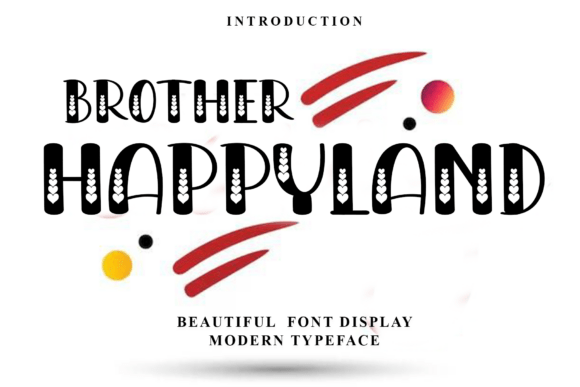
That’s where the Brother Happyland Font comes in – a beautiful and eye-catching font designed to bring a soft, unique touch to your designs. With its distinctive strokes and versatility, this font is perfect for a wide range of creative projects, from crafts to design works.
Key Features of Brother Happyland Font
- Font Family: Brother Happyland Font
- Unique Characteristics: Features a playful, handwritten style with a mix of rounded and pointed letterforms, making it ideal for creative projects and designs
Brother Happyland Font Review
I recently had the chance to work with the Brother Happyland Font, and here’s my honest take on it.
The Brother Happyland Font has a unique charm to it. The quirky characters and expressive style make it perfect for adding a touch of whimsy to children’s books, greeting cards, or even branding for a playful company. The font’s consistency in weight and size across various styles is also a plus.
- Unique and quirky design that adds character to text
- Consistent weight and size across styles
- Perfect for children’s content, playful branding, or greeting cards
The font’s readability can be a concern, especially in smaller sizes. The characters can be quite ornate, which might make it difficult for some readers to distinguish between letters. Additionally, the font’s limited weight range may not be suitable for all types of content.
- Readability issues in smaller sizes
- Ornate characters can be difficult to distinguish
- Limited weight range may not be suitable for all content
The Brother Happyland Font is a great choice for designers looking to add a playful touch to their projects. While it may have some limitations, its unique design and consistent style make it a worthwhile addition to any font collection.
Tips for Getting the Most Out of Brother Happyland Font
To get the most out of Brother Happyland Font, consider the following tips:
- Use the font for playful and whimsical designs.
- Combine the font with bold and bright colors for maximum impact.
Brother Happyland Font is commonly used for:
- Children’s book illustrations.
- Party invitations and decorations.
- Fun and playful advertisements.
Alternatives to Brother Happyland Font for Designers
Cream Soda is a playful, cursive script font suitable for designs that require a touch of whimsy and elegance. It’s perfect for invitations, greeting cards, and other creative projects. Compared to Brother Happyland Font, Cream Soda has a softer and more refined look, making it ideal for applications where a more delicate feel is desired.
American Dream
American Dream is a bold, modern script font that exudes confidence and sophistication. It’s ideal for designs that require a strong, attention-grabbing headline or title. Compared to Brother Happyland Font, American Dream has a more aggressive and dynamic feel, making it perfect for applications where a bold statement is needed.
Great Vibes is a fun, handwritten font that’s perfect for designs that require a casual, laid-back feel. It’s ideal for social media graphics, advertisements, and other projects where a relaxed, conversational tone is desired. Compared to Brother Happyland Font, Great Vibes has a more carefree and spontaneous look, making it perfect for applications where a fun and playful vibe is needed.